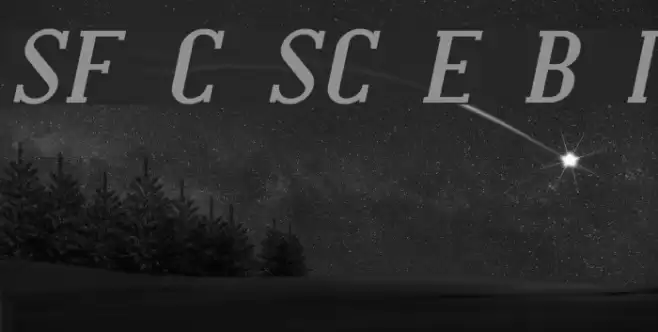
SF Covington SC Exp Bold Italic Font
SF Covington SC Exp Bold Italic Description
This font exhibits a bold and italicized style with a strong presence, characterized by its expanded width and high contrast between thick and thin strokes. The serifs are pronounced, adding a classic touch to the overall modern aesthetic. The uppercase letters are tall and commanding, while the lowercase letters maintain a consistent flow, enhancing readability. Numbers are clear and distinct, making them suitable for various applications. The special characters are well-integrated, maintaining the font's cohesive look. This typeface is ideal for projects that require a bold statement, combining elegance with a contemporary edge.
A bold, italic serif font with expanded width and high contrast, perfect for impactful designs from Uncategorized fonts.
- Proposed Projects: Ideal for branding, headlines, posters, and editorial design where a strong, elegant presence is needed.
- Width: Expanded
- Contrast: High
- Use Case: Headlines, Logos, Branding